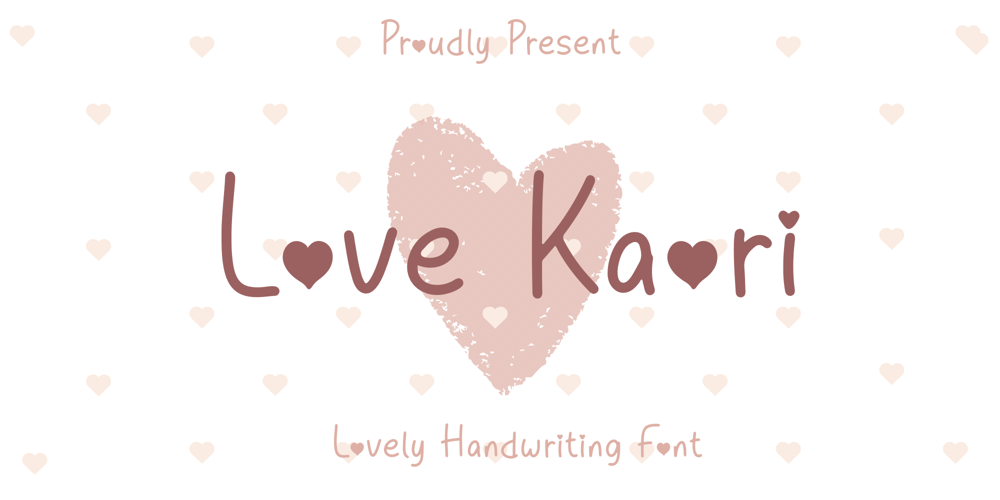
Love Kaori Font Family was designed by Nur Aiysah Amalia and published by Aisyah. Love Kaori contains 1 styles and family package options. The Love Kaori handwriting font is a delightful blend of graceful curves and meticulously crafted letterforms, embodying a sense of elegance and charm.Its fluid strokes create a smooth and harmonious flow, lending a cute and inviting touch to any written expression. This font is not just a collection of characters; it’s a visual poetry, evoking a timeless and romantic feel. Ideal for conveying sentiments in notes, crafting memorable invitations, or infusing creativity into various projects, it effortlessly captures the essence of handwritten beauty.Each character is thoughtfully designed, resulting in a font that is not only visually appealing but also conveys a sense of warmth and sophistication.